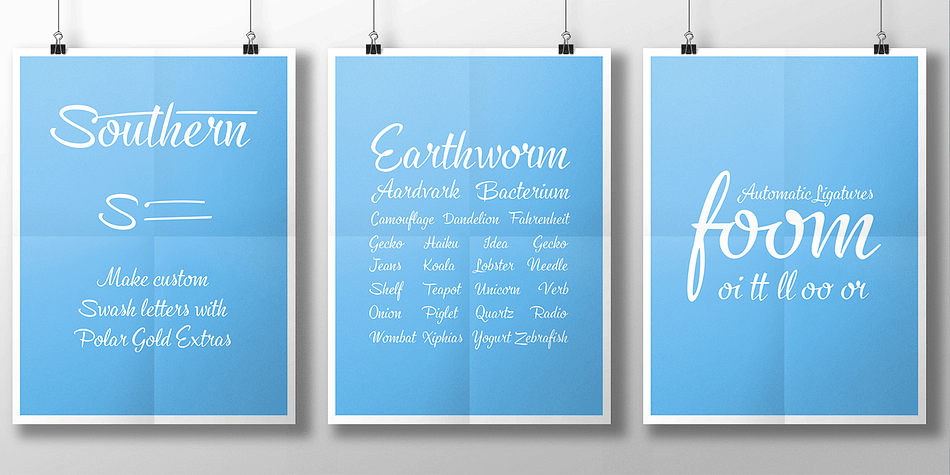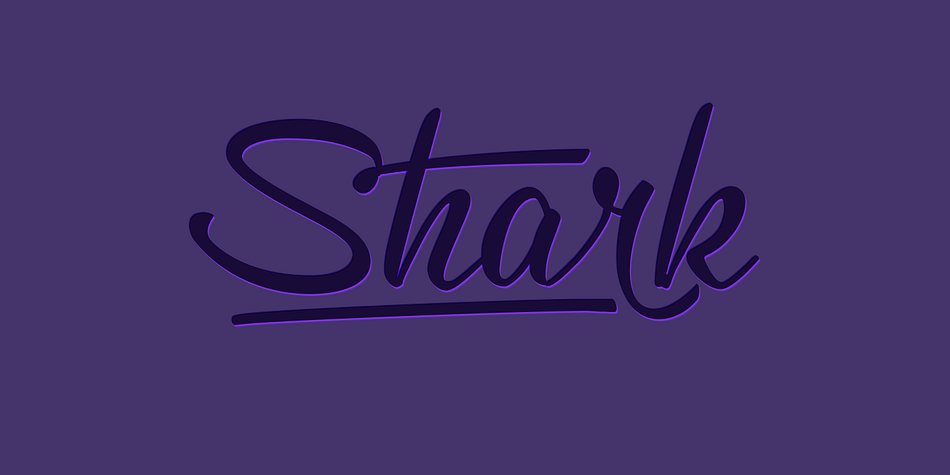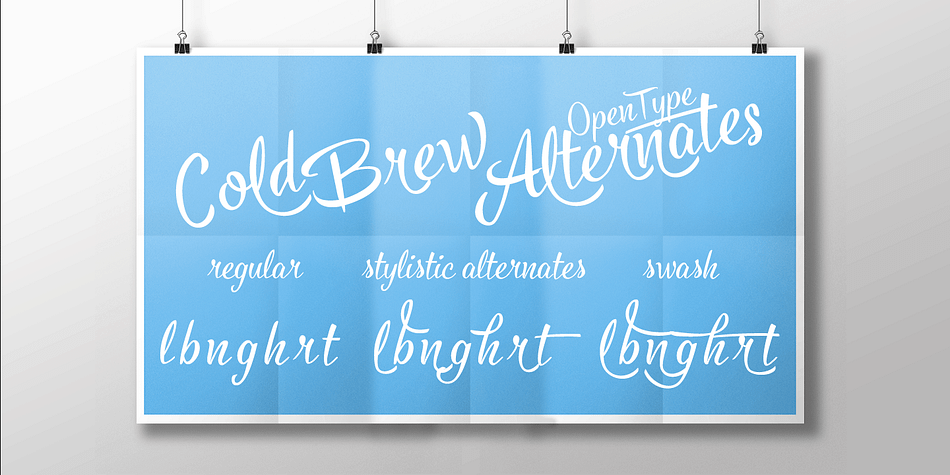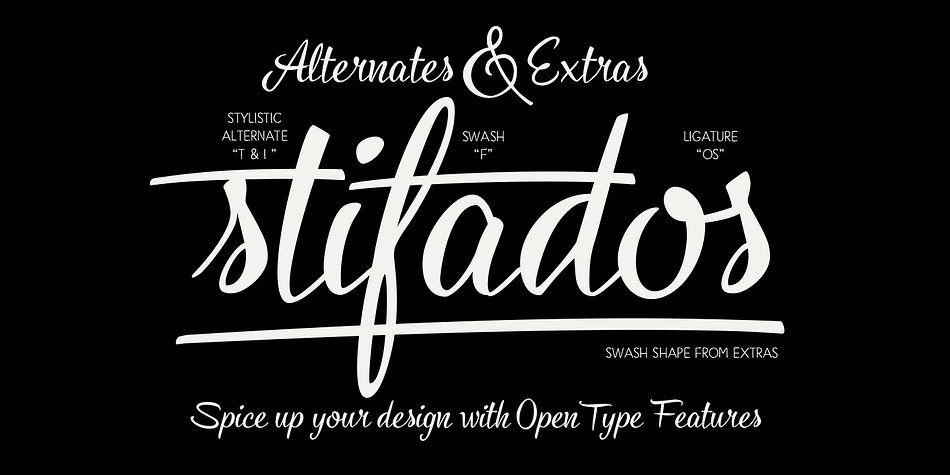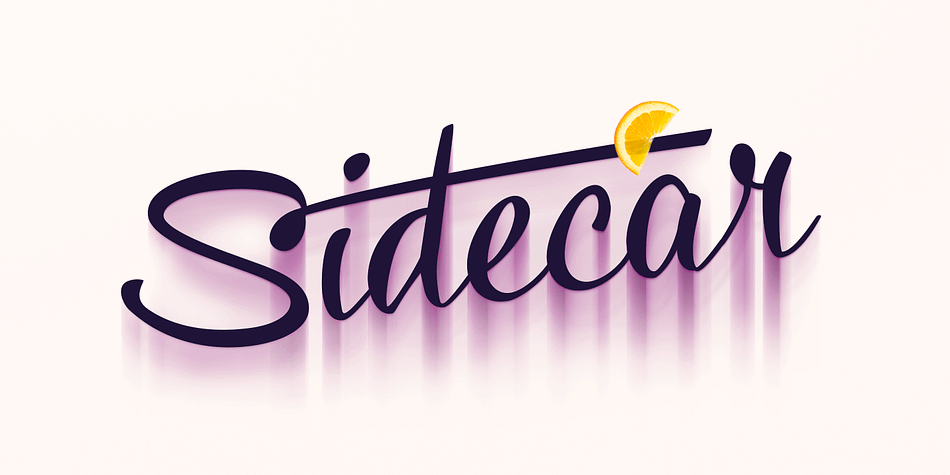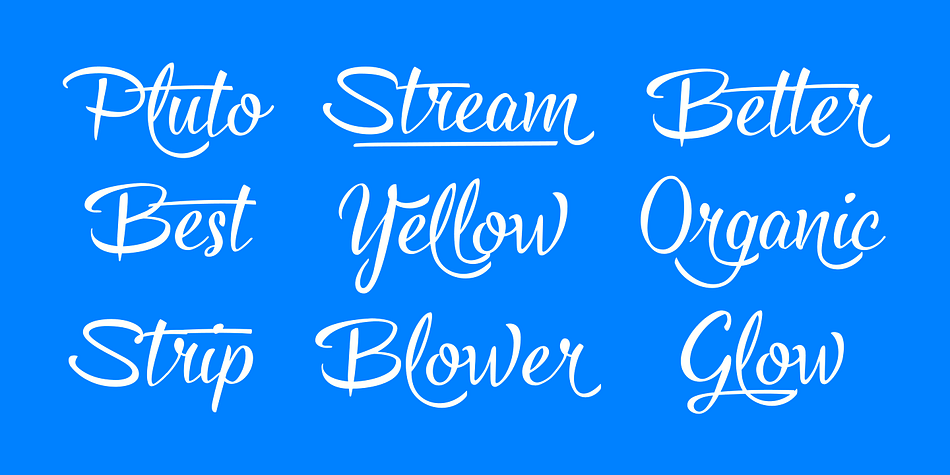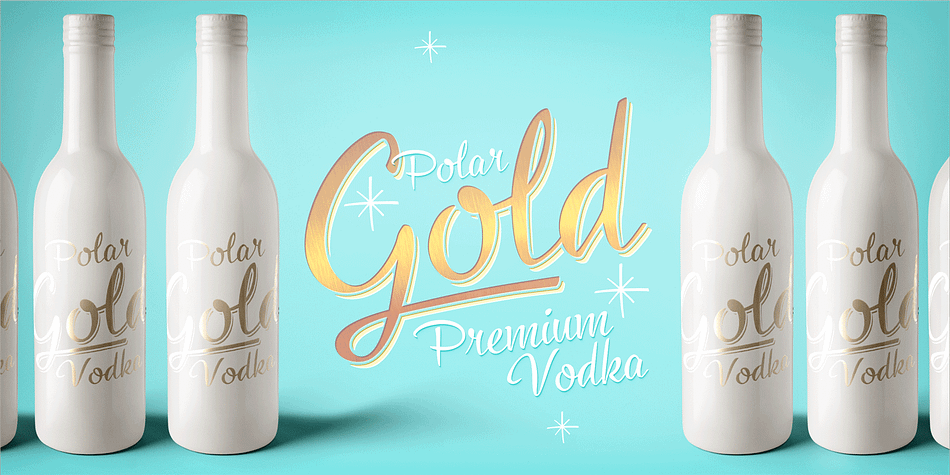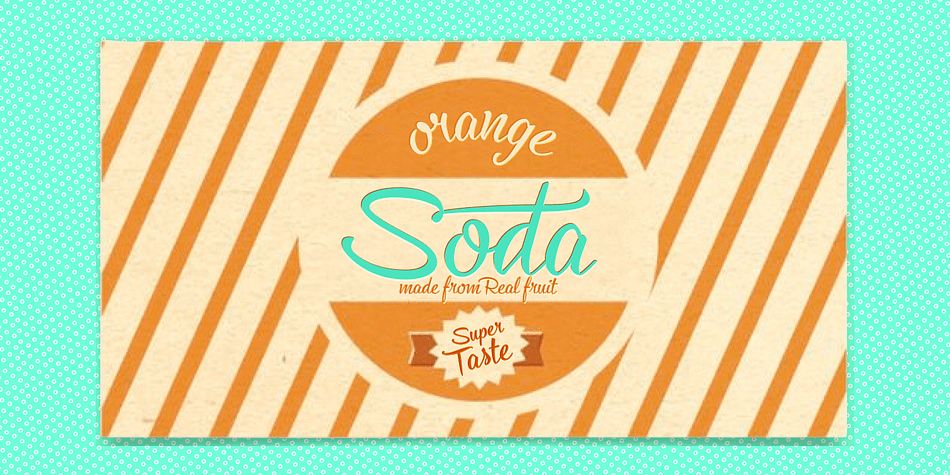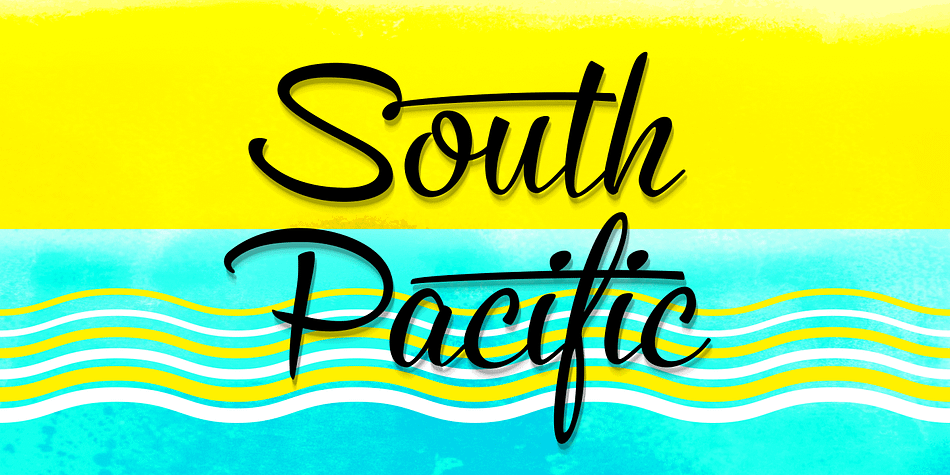
Designed by Emil Karl Bertell, Cold Brew is a dingbat and brush script font family. This typeface has four styles and was published by Fenotype.
Cold Brew is a swift brush script family of three weights and a set of extras. Cold Brew is based on hand drawn letters polished with care to retain the vivid appearance of ink brush.
Cold Brew is equipped with OpenType features to give you tools for custom-looking design: turn on Stylistic Alternates or Swash in any OpenType savvy program for flashier letters or manually select from even more Alternates from Glyph Palette.
Cold Brew Extras is a set of brush strokes and swashes designed to support the font. You can for example easily create custom letters by combining the swash shapes from Extras with the letters. Combine Extras with uppercase letters or use them as underline or just plain extra strokes to emphasise your words.